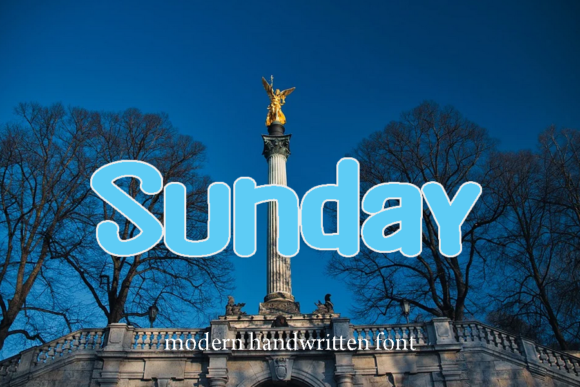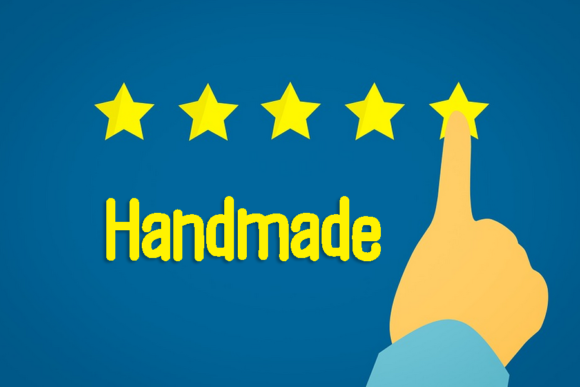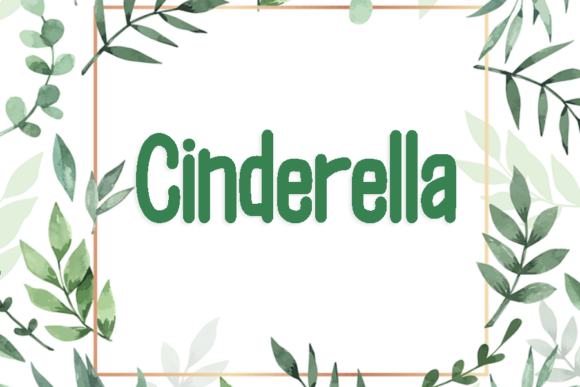
About Sunday Font
“Sunday” is a font that exudes both loveliness and boldness. With its handwritten style, this font stands as an excellent choice for creating eye-catching logos, branding materials, and memorable quotes. Each letter carries a simple and neat touch that has the power to bring your designs to life with vibrancy and impact.
The font’s charm lies in its ability to seamlessly blend a handwritten quality with a bold visual presence. The simplicity and neatness of each letter contribute to an overall aesthetic that captures attention and leaves a lasting impression.
“Sunday” finds its place in a variety of design contexts. From crafting memorable logos to establishing a strong brand identity, its versatility makes it a perfect choice for projects where making a statement is key.
In essence, “Sunday” is a font that marries loveliness with boldness. Its handwriting-inspired appearance, coupled with its potential to enliven designs, makes it an invaluable tool for designers aiming to create impactful and eye-catching visuals.